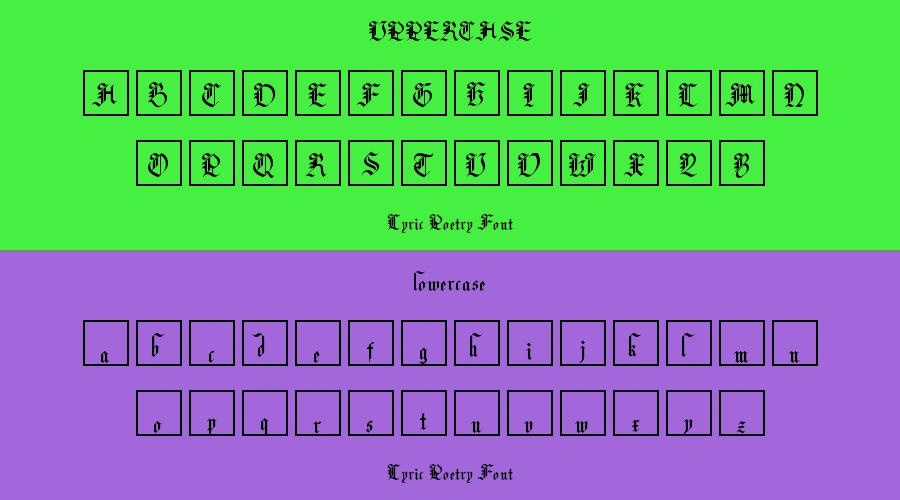
About Lyric Poetry Font
Lyric Poetry Font represents a sophisticated approach to type design, balancing pen-inspired details with gray value. Perfect for brand identities, this font family showcases impressive distinctiveness and reliability throughout its character set. Designers appreciate its versatility and reliability.
Designers will appreciate nuanced touches including rounded serifs and currency signs, adding sophistication to any project. These features become apparent in business cards, where color consistency matters most. The careful treatment of ear placement and market positioning ensures optimal performance.